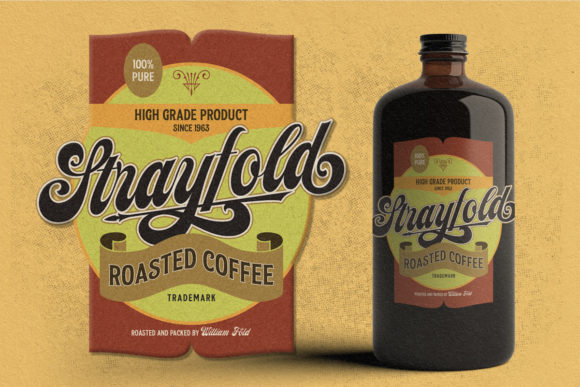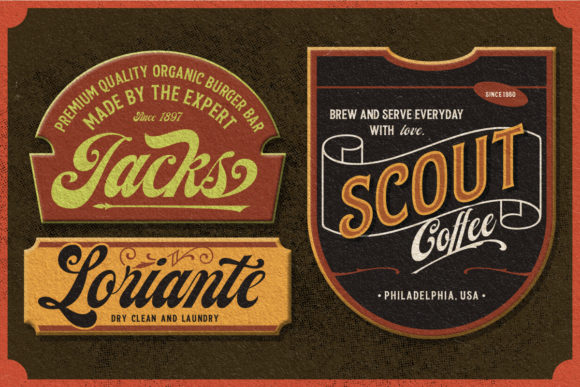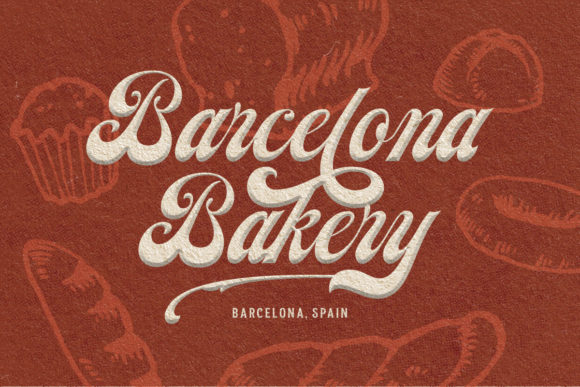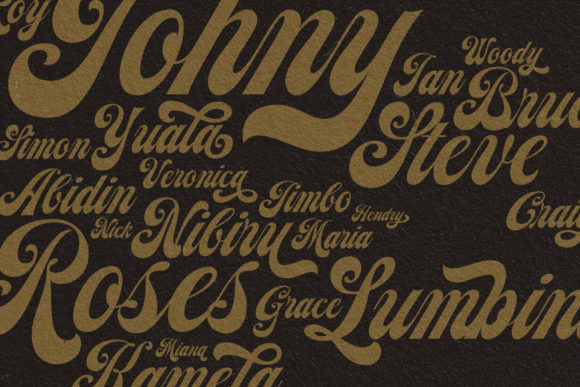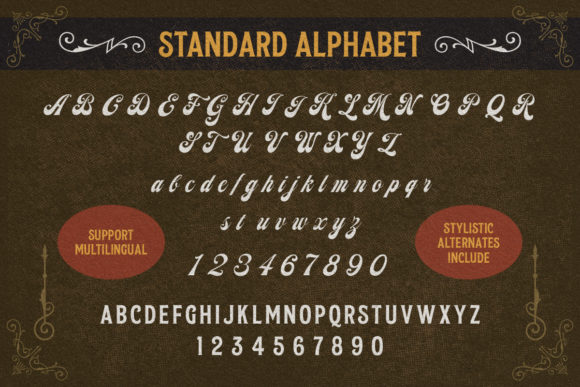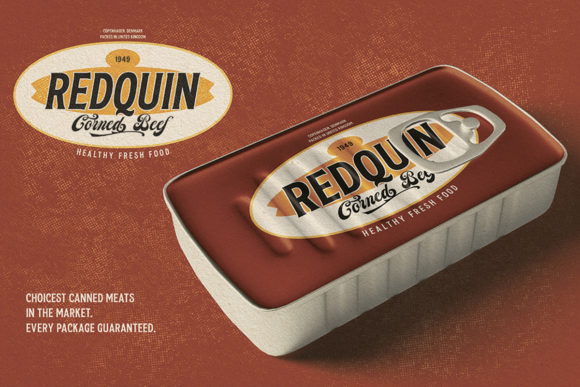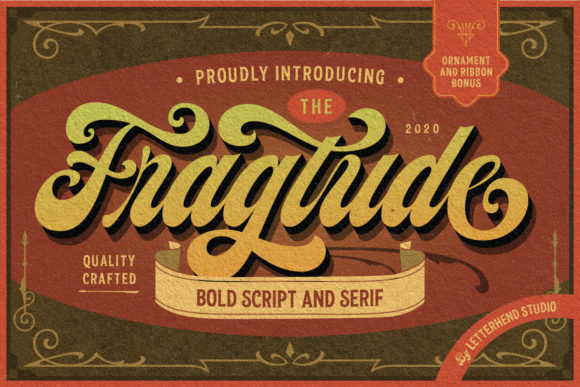
Introducing Fragtude Font: Elevate Your Designs with Elegance and Versatility
In the world of typography, a font can make or break a design. It’s the foundation upon which the entire visual aesthetic is built. For designers and crafters, finding the perfect font that combines elegance, versatility, and uniqueness can be a daunting task. However, if you’re looking for a duo font that can instantly elevate your designs to the highest levels, look no further than Fragtude Font.
A Spectacular Duo Font: Serif and Script
Fragtude Font is not just any ordinary font. It’s a spectacular duo font that combines the classic elegance of serif and the fluid beauty of script fonts. This powerful combination allows designers to experiment with a wide range of design possibilities, from traditional and formal to modern and whimsical. Whether you’re working on a branding project, a wedding invitation, or a packaging design, Fragtude Font is the perfect companion to bring your creative ideas to life.
Incredibly Versatile: A Font for All Designs
One of the standout features of Fragtude Font is its incredible versatility. This font duo is designed to fit a wide pool of designs, making it an ideal choice for designers who work on various projects. From editorial designs, such as magazines and newspapers, to digital content, like blogs and social media graphics, Fragtude Font adapts seamlessly. Its unique blend of serif and script fonts ensures that your designs stand out, yet remain perfectly legible.
Elevate Your Designs to New Heights
Adding Fragtude Font to your design arsenal can instantly transform your creative ideas into stunning visual masterpieces. The font’s elegant lines, beautiful curves, and perfect balance of contrast make it a joy to work with. Designers can use Fragtude Font to:
- Create sophisticated branding materials, such as logos, business cards, and letterheads.
- Design eye-catching posters, flyers, and brochures that capture attention.
- Develop beautiful editorial designs, including magazines, newspapers, and books.
- Enhance digital content with stylish blog posts, social media graphics, and website headers.
- Produce gorgeous packaging designs for products, making them stand out on store shelves.
Bring Your Creative Ideas to Life
When you add Fragtude Font to your favorite creative ideas, you’ll notice an immediate transformation. The font’s unique charm and character inject life into your designs, making them more engaging and captivating. Here are some tips to make the most of Fragtude Font:
- Experiment with font combinations: Pair Fragtude Font with other fonts to create stunning contrast and visual interest.
- Play with colors: Try different color schemes to match your brand’s identity or to evoke a specific mood.
- Don’t be afraid to get creative: Use Fragtude Font in innovative ways, such as incorporating it into illustrations or graphics.
In conclusion, Fragtude Font is a game-changer for designers and crafters looking to elevate their designs with elegance and versatility. This spectacular duo font is incredibly versatile, making it suitable for a wide range of design projects. By adding Fragtude Font to your creative toolkit, you’ll be able to bring your ideas to life and create stunning visual masterpieces that leave a lasting impression.